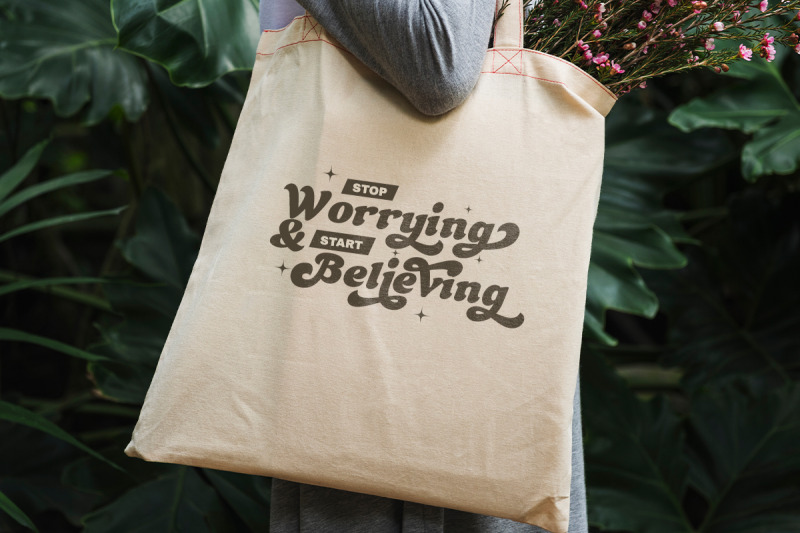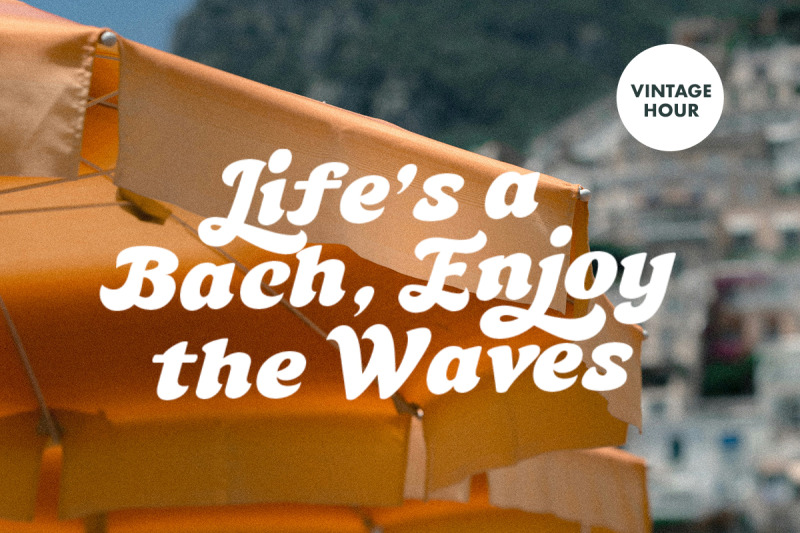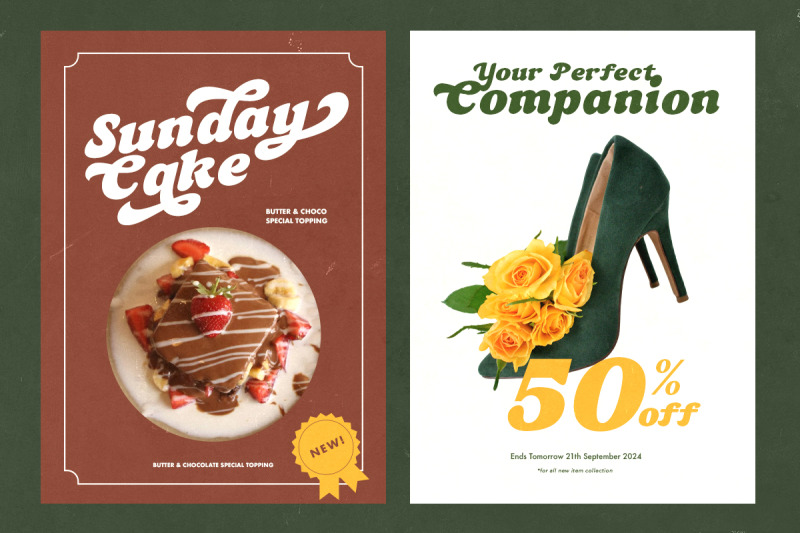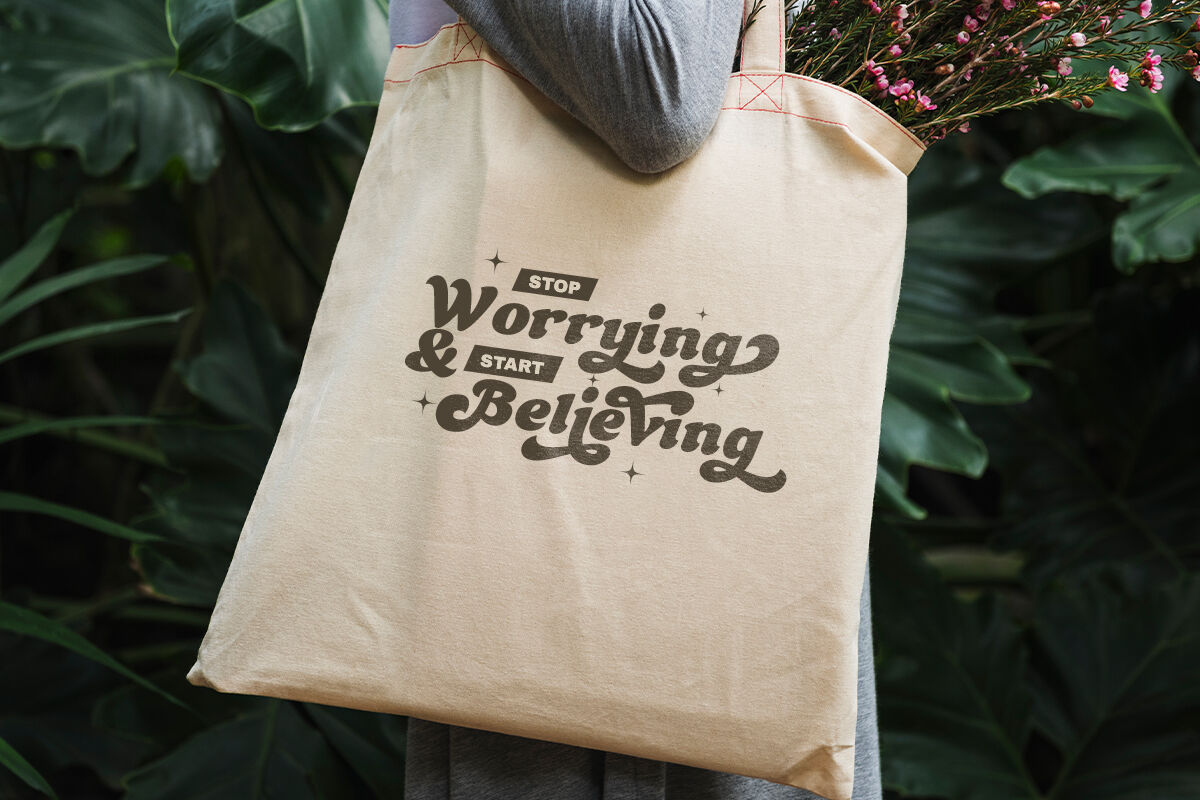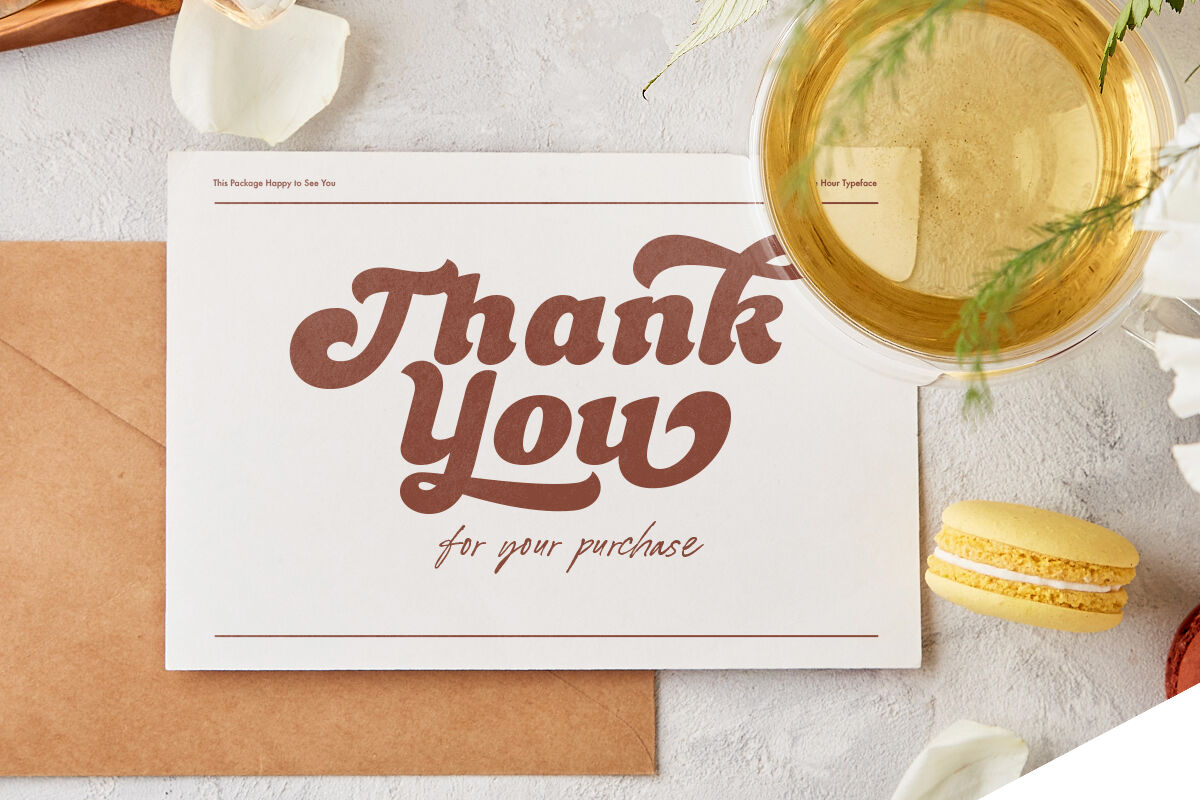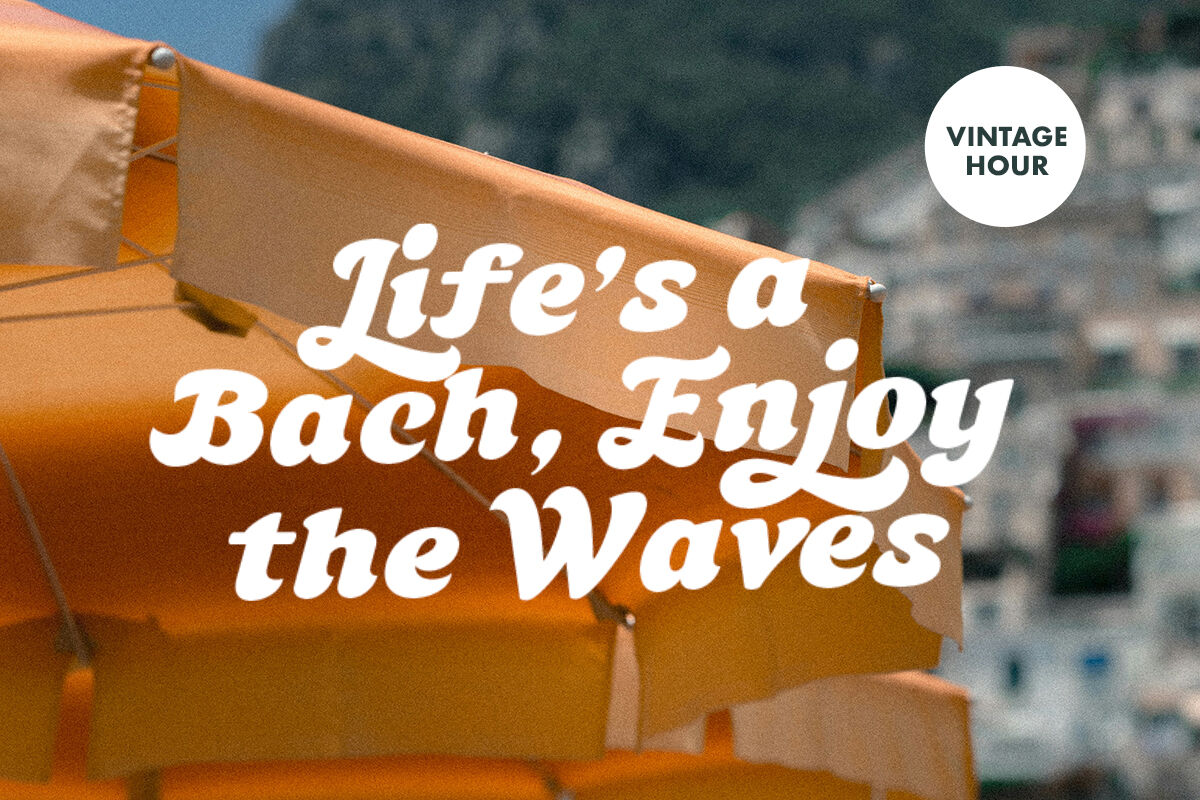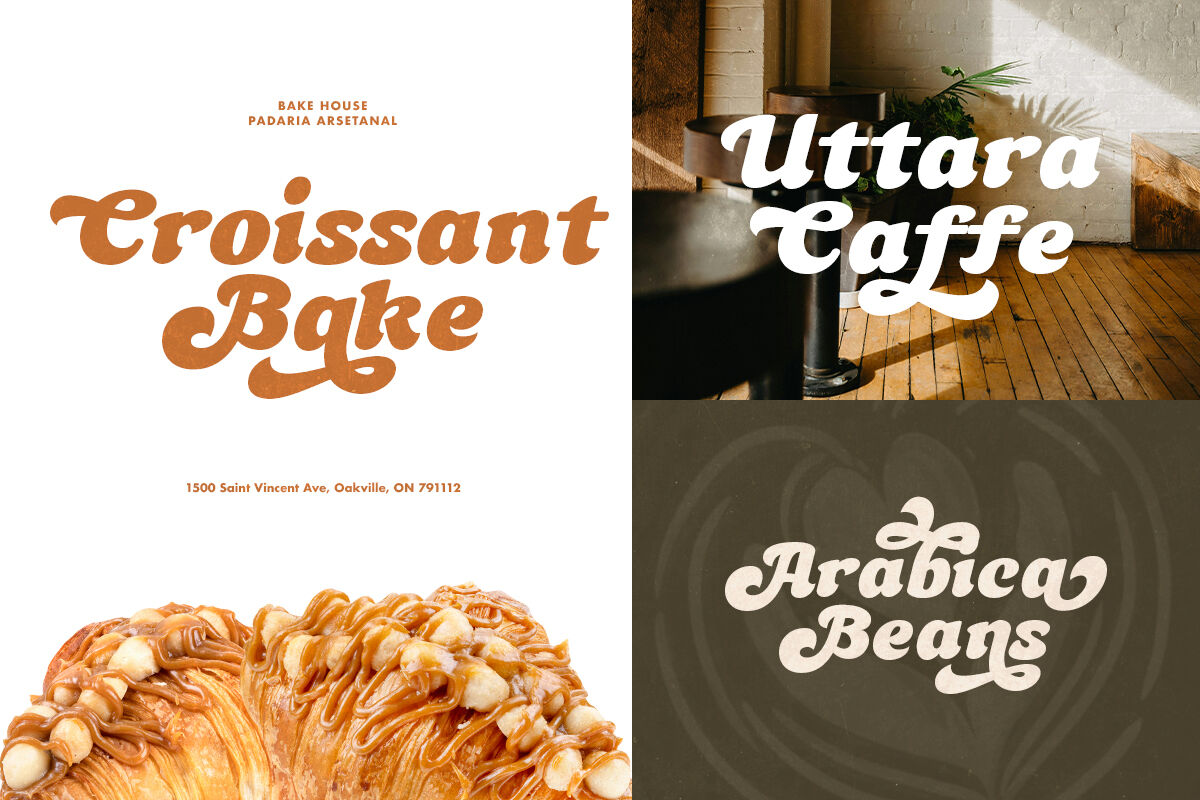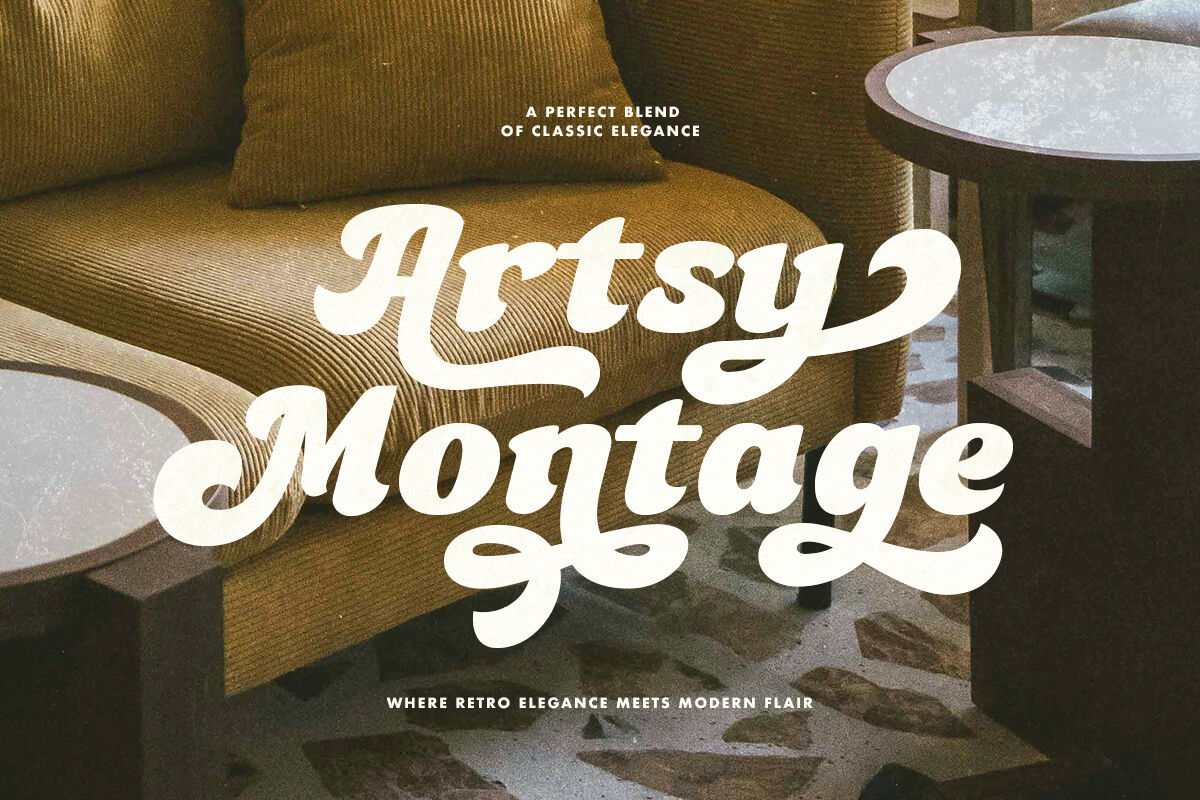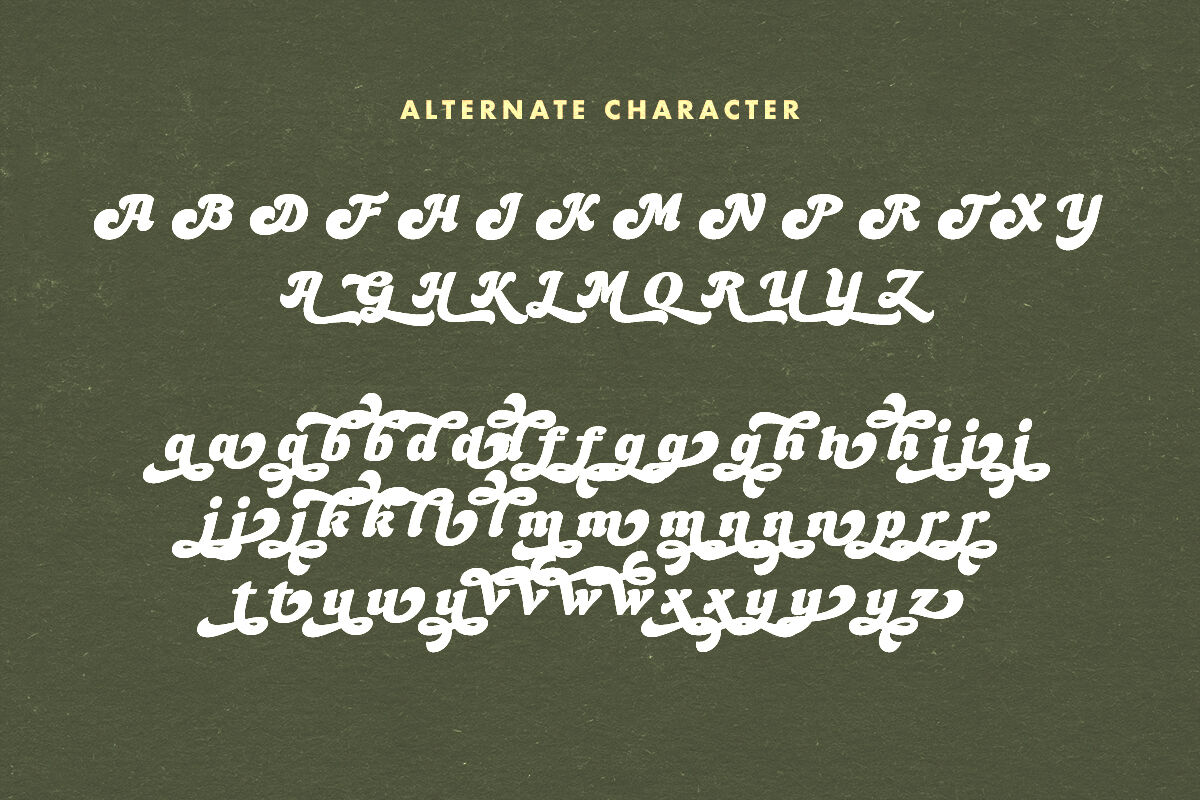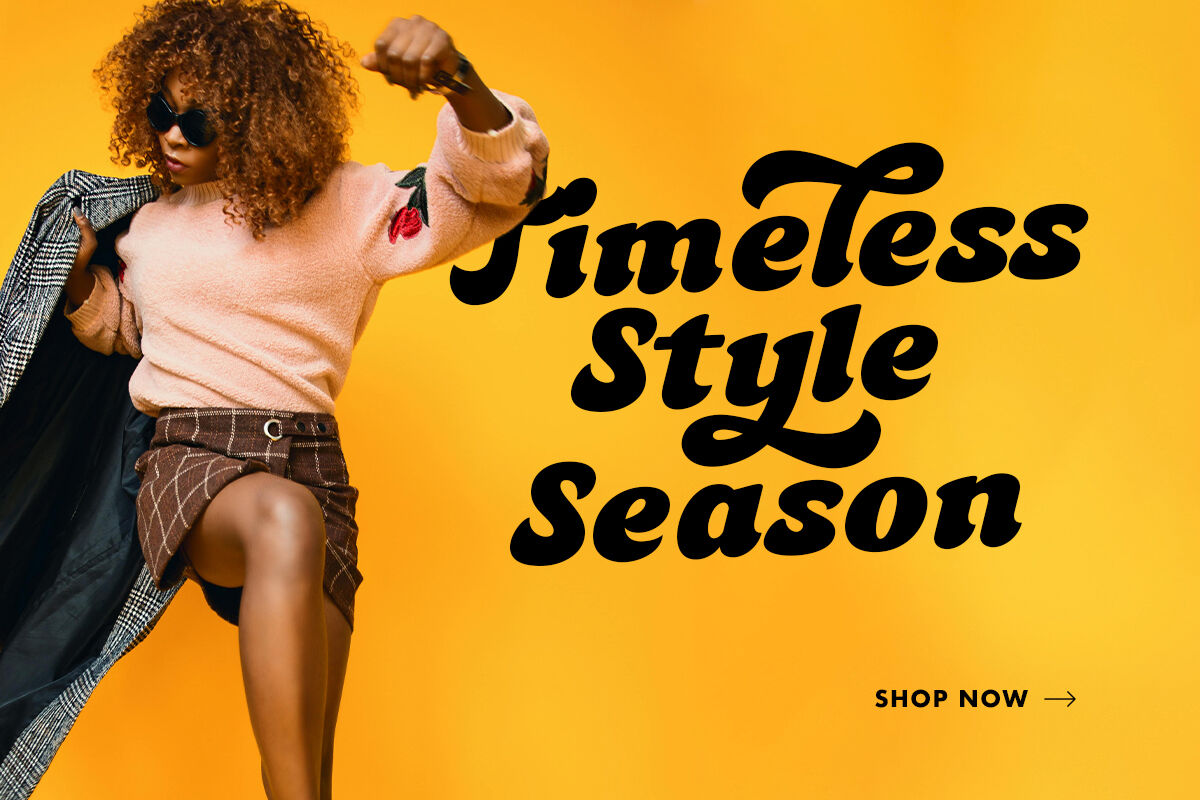
Artsy Montage - Retro Bold Font
Artsy Montage is a retro and hipster bold font. You can use this font for any purposes especially the project that required old and vintage looks such as poster, book cover, signage, quotes, and etc. With modern alternates, you can make your design more stunning and eye-catching. Artsy Montage also support multi language. Let this font make your next designs bolder and attractive!